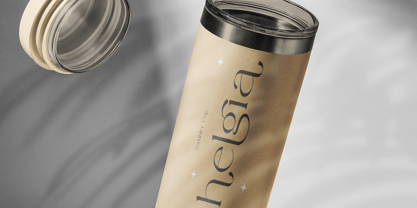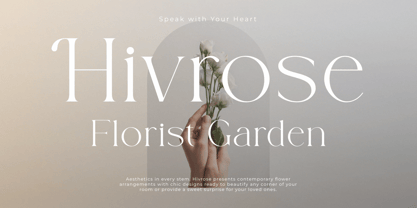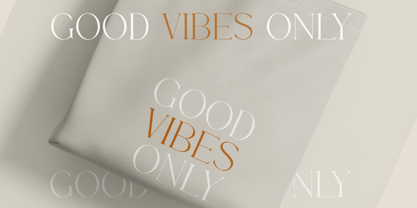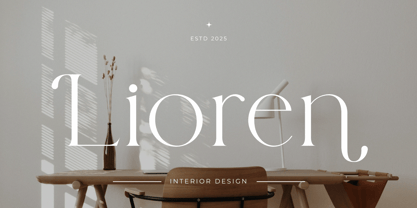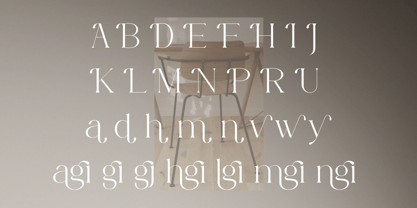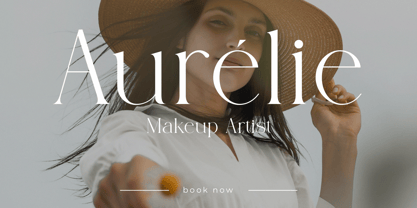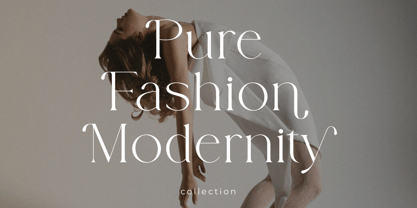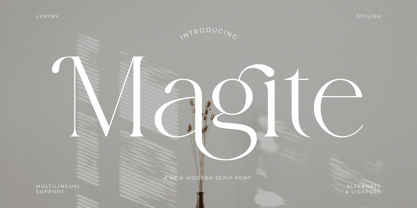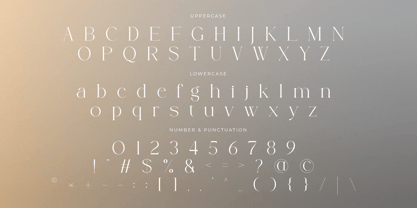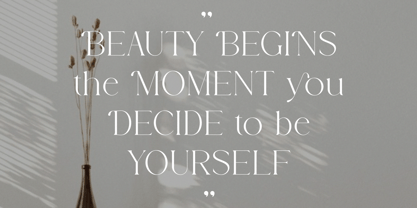
Magite
The Magite Font Family was designed by Farchan and published by Gridline Type. Magite contains 1 styles. More about this family
Introducing Magite the elegant, beautiful, and modern Serif. With its modern and minimalist look, Magite brings a luxurious, classy, ​​and clean style to your projects such as websites, modern logos, brand identities, social media quotes, wedding stationery, magazines, and more! Magite features unique and classy capital letters A to Z and also comes with unique alternates making Magite a beautiful font that can be customized for various projects and jobs you want. Magite is perfect for: logos, brands, wedding invitations, business cards, greeting cards, posters, magazines, social media, agenda prints, and websites. → You cannot change the font and claim it as your own FEATURE: * Easy to Use (Includes a guide on how to use the font) * Compatible with: Adobe Illustrator, Photoshop, Canva, Procreate, etc. * Quick Response Support * Uppercase and lowercase letters * Multilingual Characters * Numbers & punctuation * Alternative styles and ligatures Hope you enjoy our fonts & if you have any questions, feel free to Contact us & We are happy to help I appreciate your interest and I hope you enjoy this font!